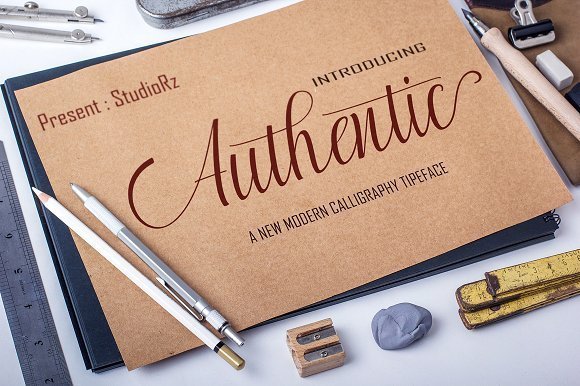
Authentic Modern Calligraphy. This font was designed by handwriting, and it has a modern and unique forms of calligraphy, the writing style is very natural. Authentic has a very unique style of calligraphy, it is very suitable for use in the work of modern design.